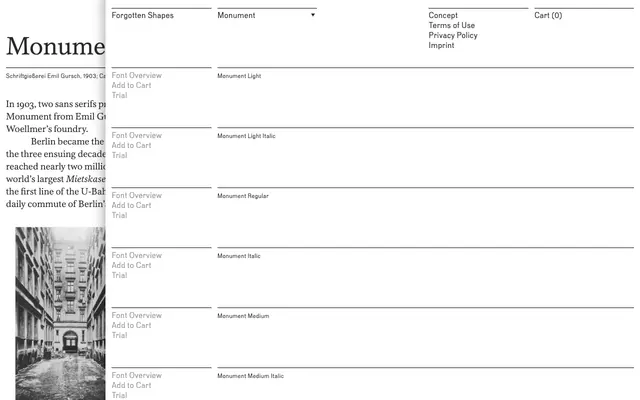
Monument
A scholarly revival of Schriftgießerei Emil Gursch's 1903 Berlin grotesque, reconstructed by Stephan Müller and Reymund Schröder with five weights and matching italics.
Originally cut in 1903 for Berlin's booming commercial print trade, Monument is a sans serif of even stroke width and high-waisted, relatively narrow capitals, with a defining characteristic of abrupt angular shoulders on arched letters such as 'h', 'n' and 'u'. Forgotten Shapes rebuilt the family across five weights from Light to Heavy, each with a corresponding italic, staying faithful to the original's distinctive geometry while making it viable for contemporary use. The revival is accompanied by detailed historical research into the Berlin type foundry scene of the early twentieth century.
A revival of an 1903 Berlin foundry sans serif with even stroke width, high-waisted narrow capitals and abrupt angular shoulders; fits squarely within the historical grotesque tradition of German jobbing typefaces.